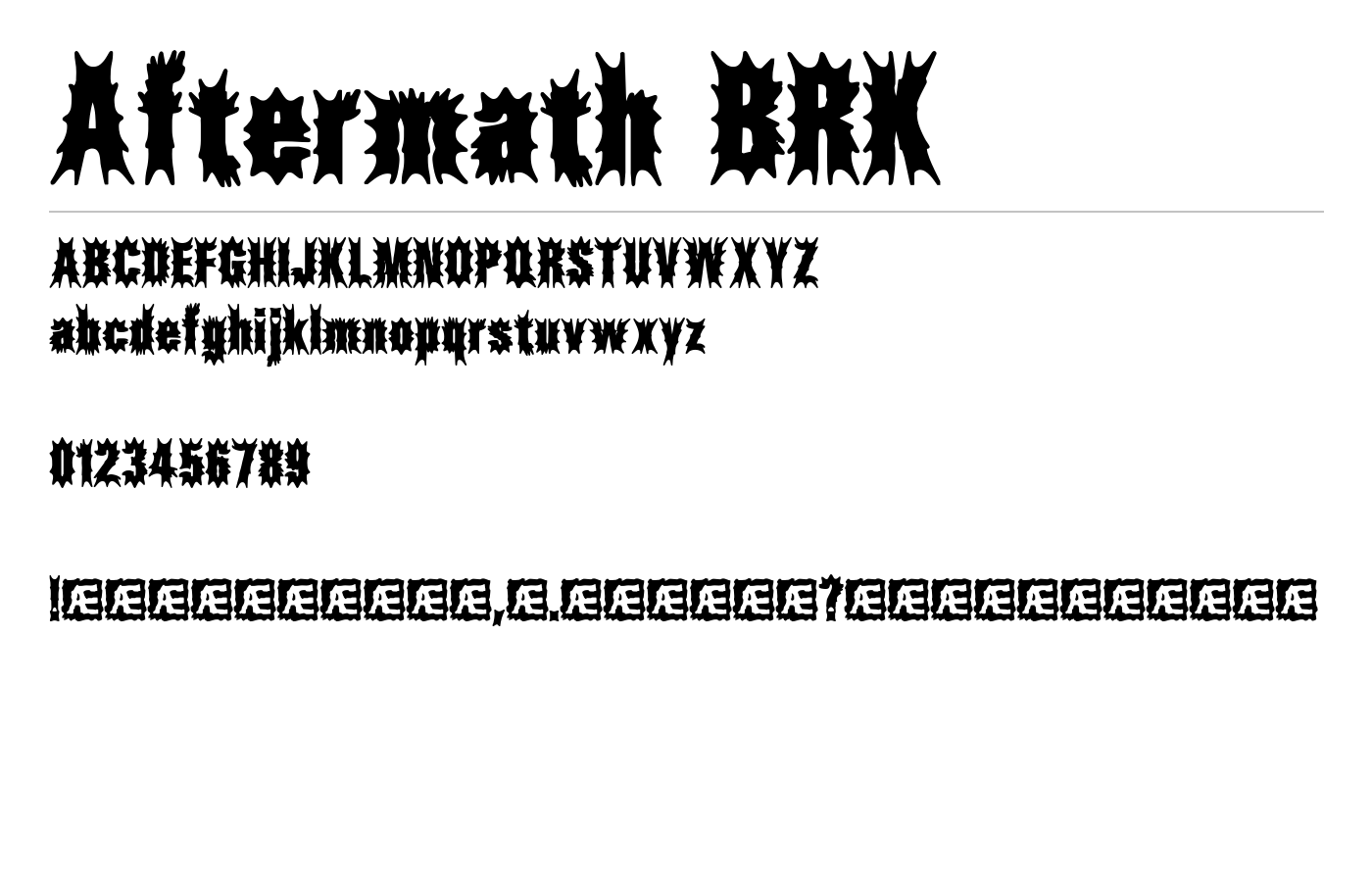
Aftermath BRK is a bold, condensed display font with sharp, irregular edges that give it a rugged, distressed look, perfect for creating a striking, edgy atmosphere. Its heavy weight and high contrast combined with unique, spiky letterforms make it ideal for attention-grabbing headlines, posters, and branding that seeks a rebellious or intense vibe. This font works best where bold impact and strong personality are needed rather than for extended reading.
Aftermath BRK Font
About Aftermath BRK Font
| Font family | Aftermath BRK Font |
| Designer | Brian Kent |